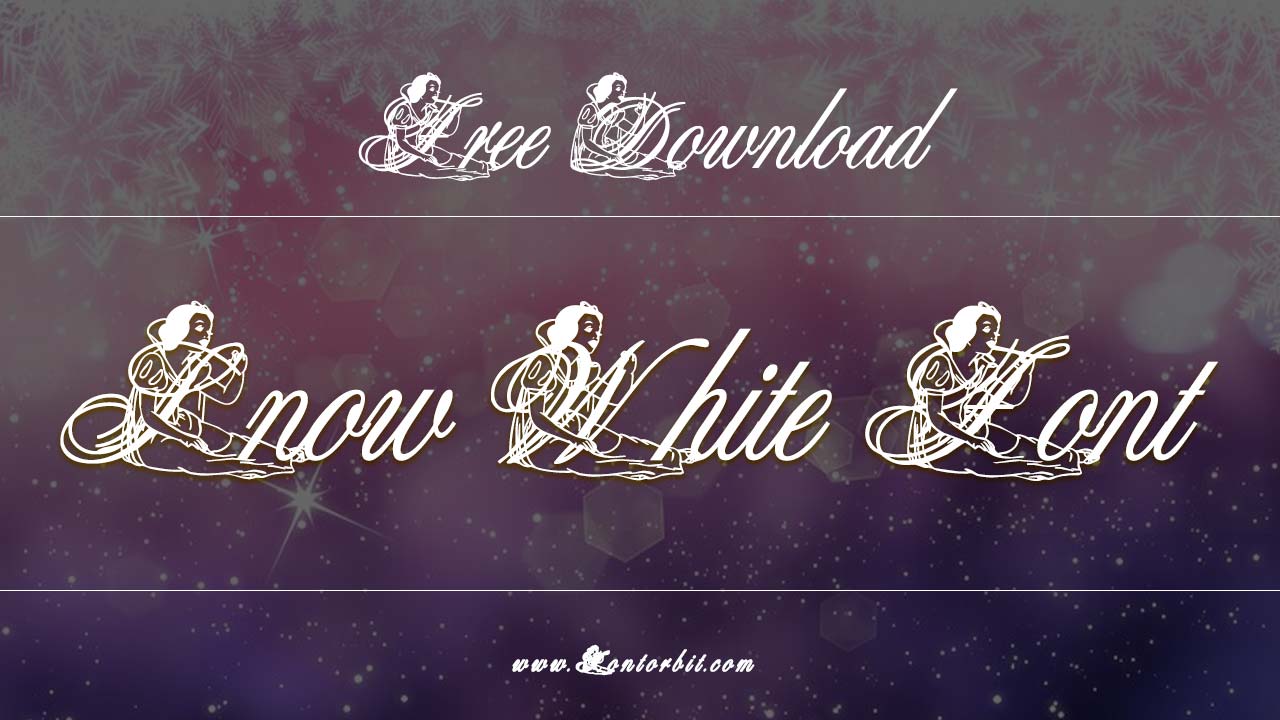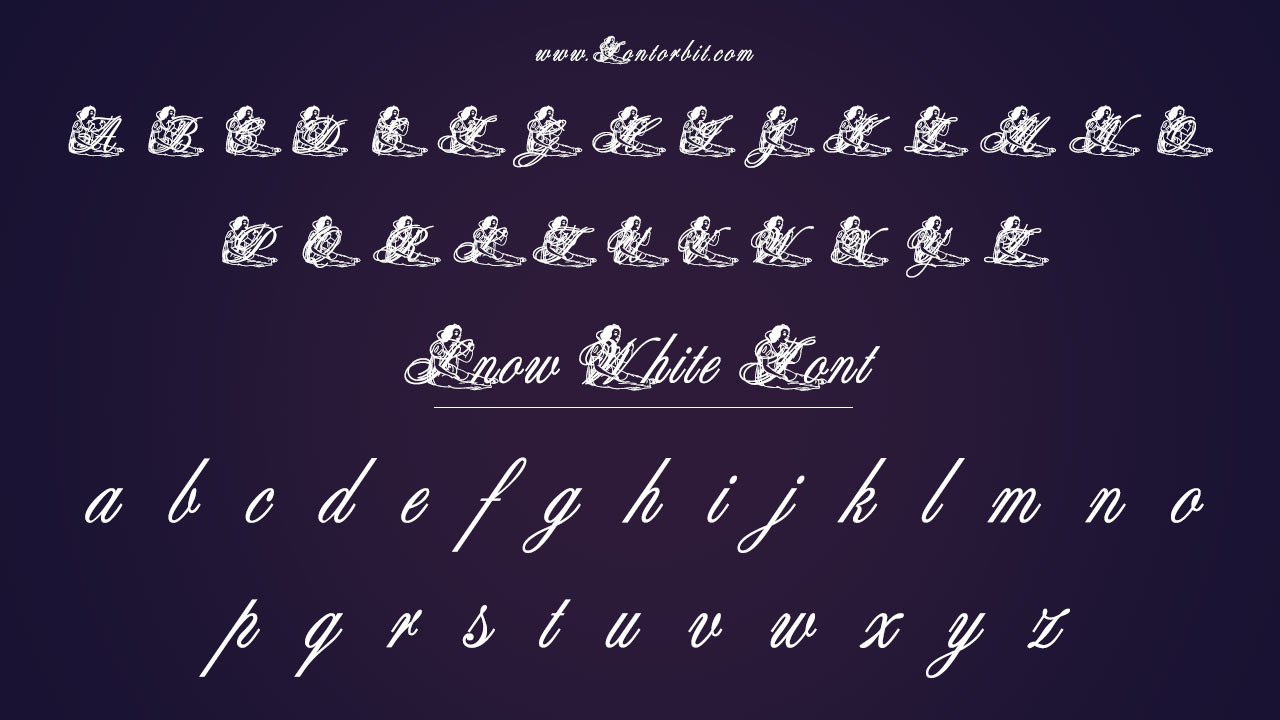
The Snow White Font is an elegant handwritten script font designed by Siti Nurjanah and released under the Free for Personal Use license. Published on NJ Studio, this typeface combines beautiful flowing characters, making it perfect for projects involving themes like weddings, winter, or princess stories.
Key Takeaways:
- Snow White Font is a script style font, ideal for personal use.
- It includes characters suited for romantic, winter, or fairytale-themed projects.
- The font is inspired by handwritten and calligraphy styles, with a sophisticated touch.
- It’s an excellent choice for posters, invitations, and other decorative designs.
Snow White Font Information
| Name | Snow White Font |
| Style | Handwritten Script |
| Designer | Siti Nurjanah |
| Type | Script Font |
Font Family Includes
- Snow White Regular
Where Snow White Font Is In Use
- Invitations (Perfect for wedding and event invitations)
- Posters (Ideal for promotional posters)
- Disney-Themed Projects (Especially related to the Snow White fairytale)
- Typography for Princess Themes (Use in logos, brands, or events featuring princesses)
- Winter-Themed Designs (Complementing snowy, winter scenes)
- Calligraphy Artworks (Great for hand-lettered design pieces)
- Advertisements (For creative marketing materials)
- Logos (For elegant, handwritten-style logos)
- Greeting Cards (Especially for baby announcements, birthdays, or holiday cards)
The Snow White Font by Siti Nurjanah is a versatile and elegant handwritten script perfect for personal projects. Whether you’re working on wedding invitations, Disney-themed designs, or wintery creations, this font adds a charming and whimsical touch.
1.What Is Snow White Font?
Snow White Font is a handwritten script typeface designed by Siti Nurjanah, available for free personal use.
5.Is Snow White Font Available In Different Weights Or Styles?
The font family currently includes Snow White Regular.
6.Can I Use Snow White Font In My Logo Design?
Yes, Snow White Font works great for logos, especially for projects with princess or fairytale themes.
7.What Projects Are Ideal For Snow White Font?
Snow White Font is perfect for wedding invitations, posters, greeting cards, advertisements, and any design with a fairytale or whimsical theme.
8.What Are Decorative Fonts?
Decorative fonts are stylized fonts used for emphasis or artistic projects. Snow White Font is a decorative script that fits into this category.